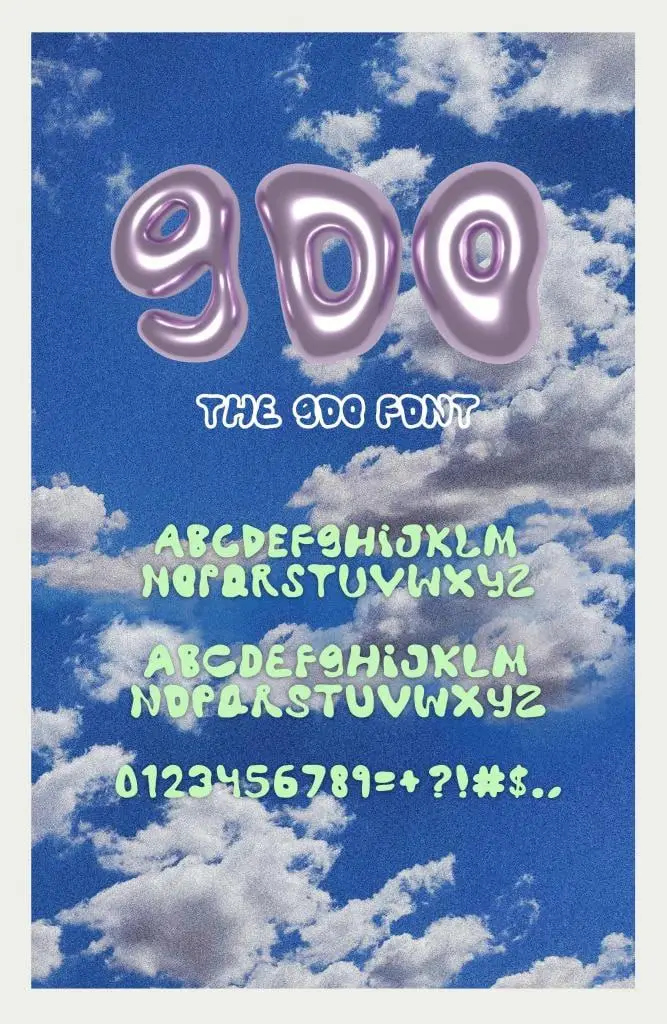
Goo Font By Safa Alkamali
The Goo Font by Safa Alkamali is a unique typeface designed to bring a playful yet modern aesthetic to your projects. This font features a rounded, friendly appearance, making it perfect for a variety of applications.
• Stylish rounded letterforms
• Uppercase and lowercase characters
• Numbers and punctuation included
• Weight: Regular, Bold